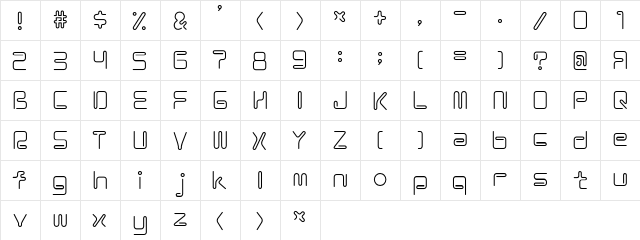
Coil Regular
Design Context for Coil Typeface
Coil takes a measured approach to typography — its balanced proportions and neutral character make it a reliable workhorse for both digital and print work.